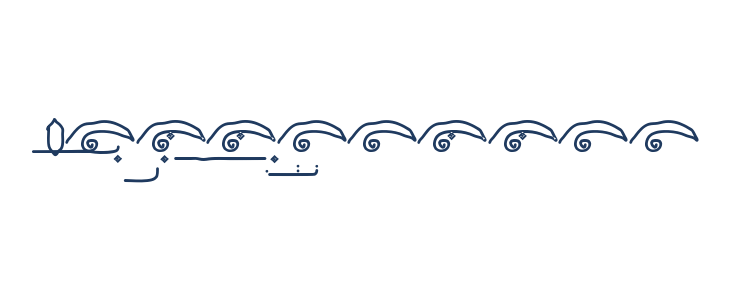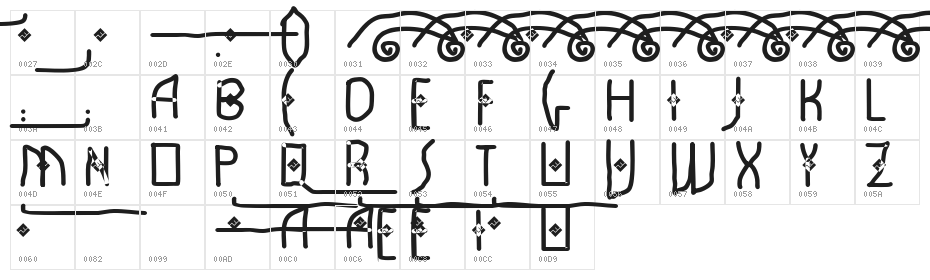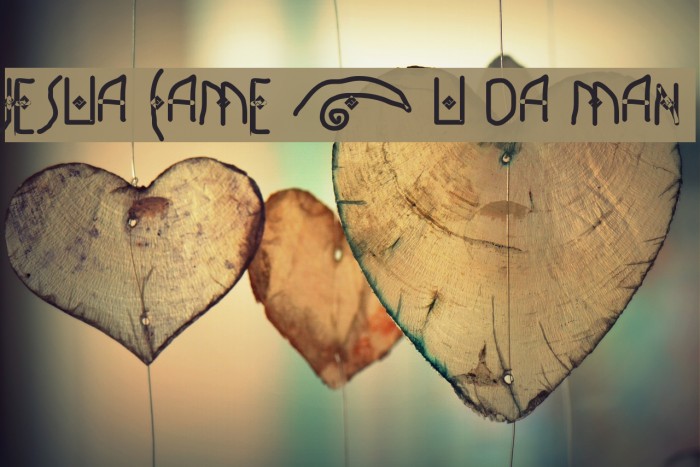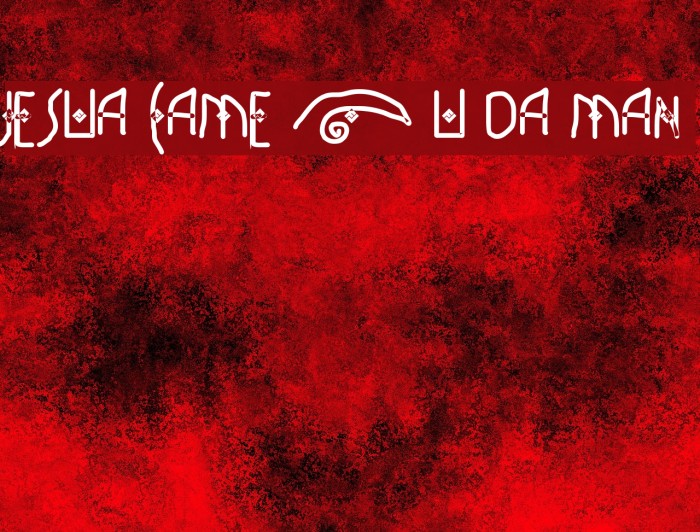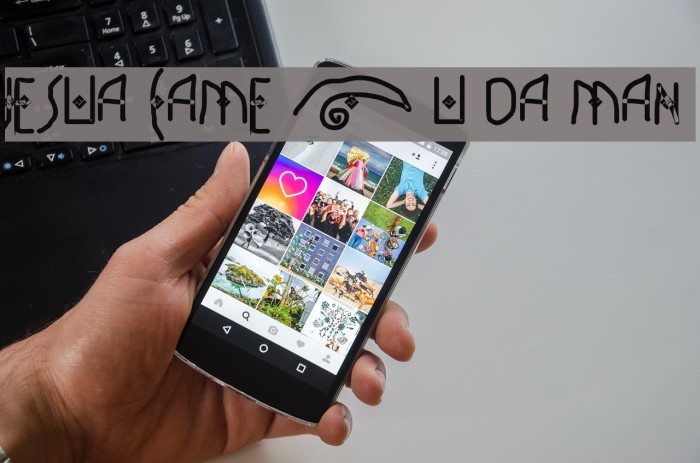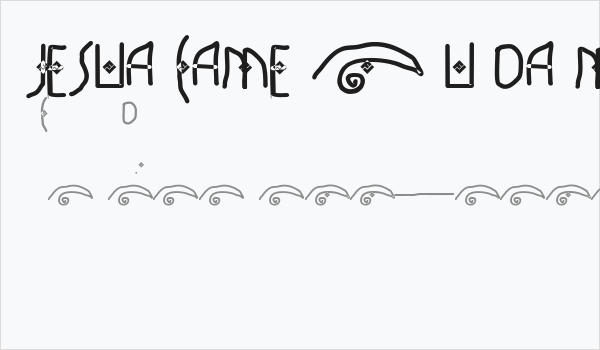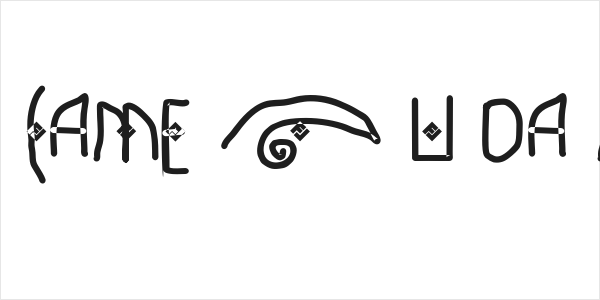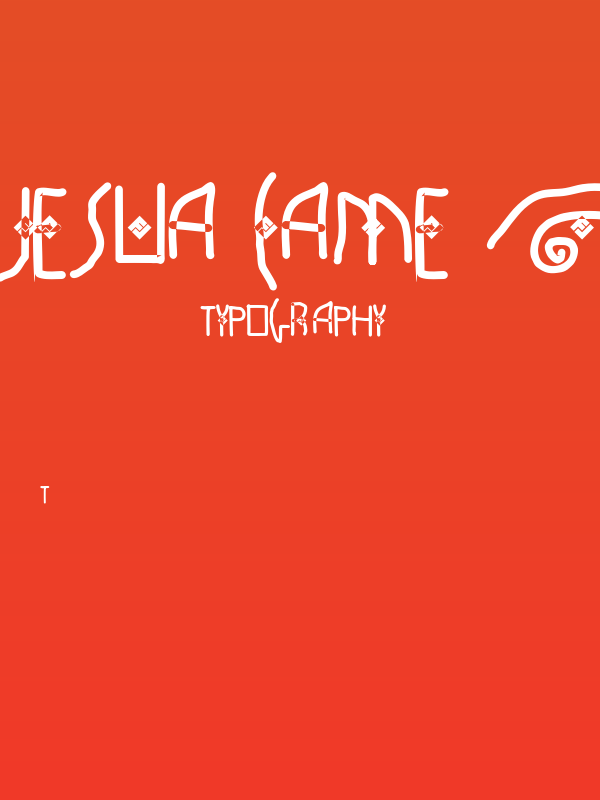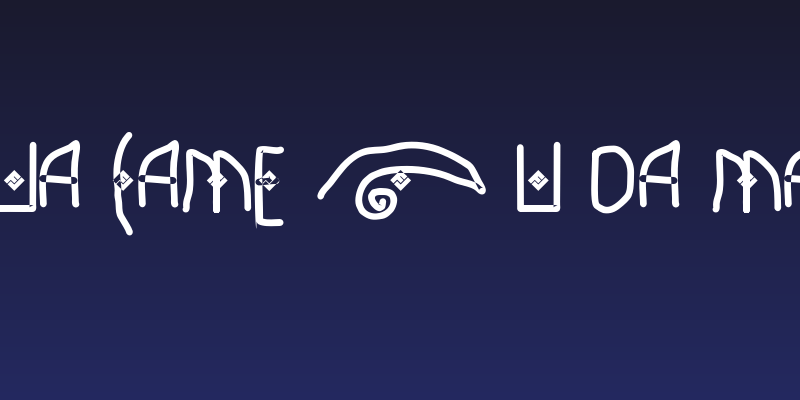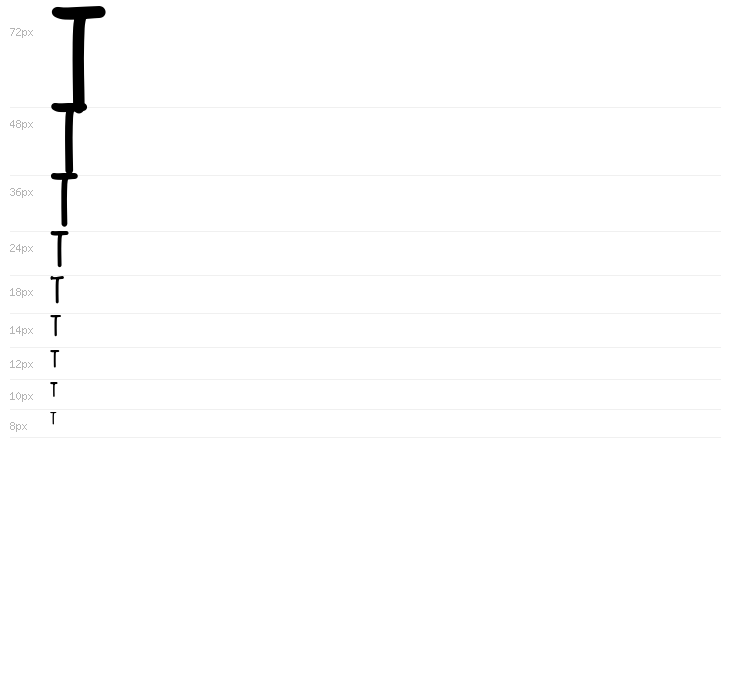
JESUA CAME 2 U DA MAN Font
JESUA CAME 2 U DA MAN Description
This font features a unique and decorative style, characterized by its intricate geometric patterns and bold lines. Each letter is adorned with diamond-shaped embellishments that add a touch of elegance and complexity. The uppercase letters are particularly striking, with their tall, narrow forms and distinctive curves. The font's overall appearance is both modern and artistic, making it suitable for creative and eye-catching designs. Its decorative elements make it stand out, while the consistent line thickness provides a sense of balance and harmony.
| Use Case | Headlines, Logos, Artistic designs |
| Proposed Projects | This font is perfect for projects that require a creative and artistic touch, such as posters, album covers, branding for fashion or art-related businesses, and unique invitations. |